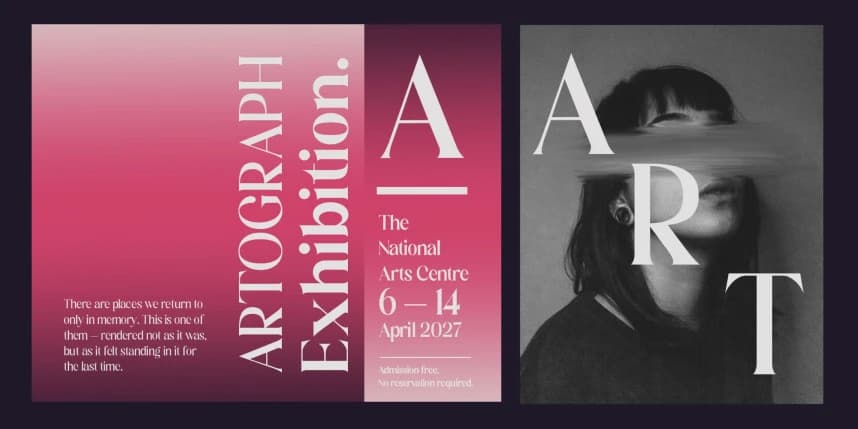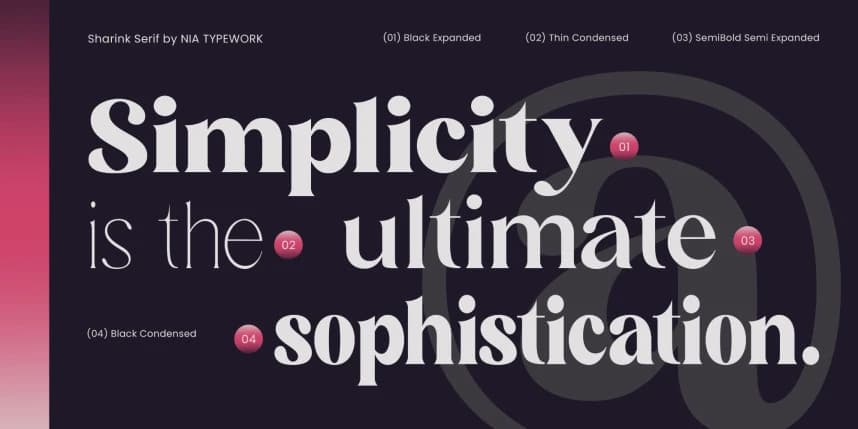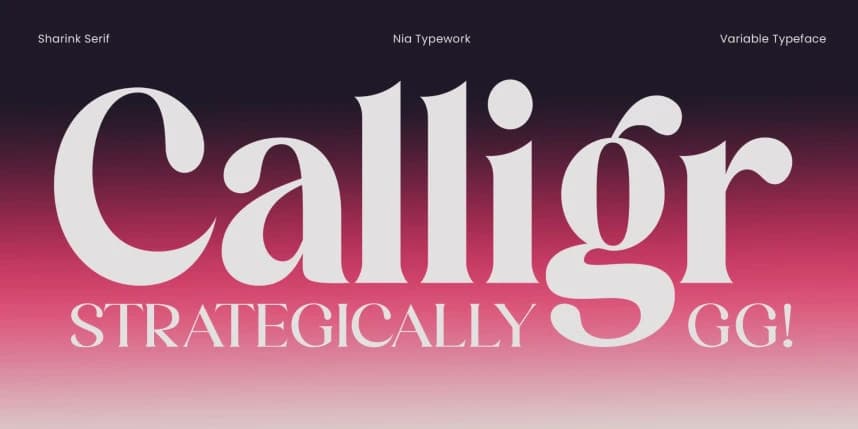
Sharink Font Family
Sharink Font Family is a modern serif display font that beautifully blends timeless elegance with bold contemporary style. Featuring strong stroke contrast, smooth curves, and refined details, this typeface is designed to instantly capture attention and elevate any visual project.